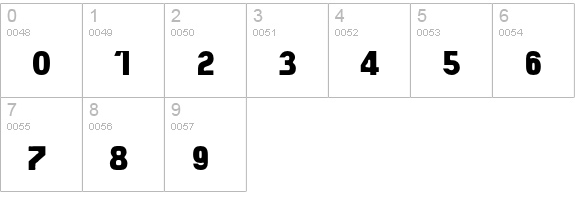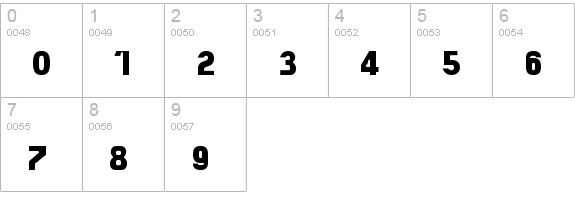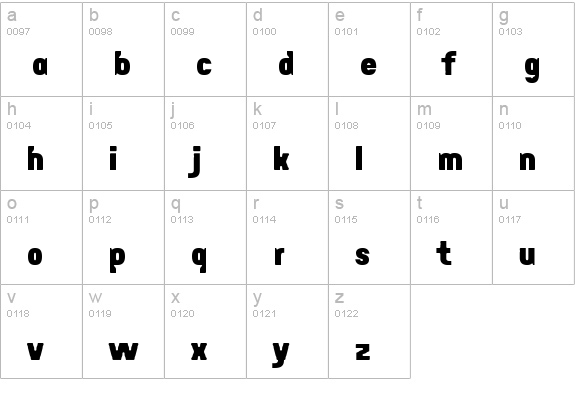
Eunuverse-ExtraBold Font Details
Eunuverse-ExtraBold is an extra-heavy, attention-grabbing variant in the Eunuverse typeface family \xE2\x80\x94 well suited to high-impact headlines, posters, and bold branding.
Eunuverse-ExtraBold is a striking and bold font that commands attention with its strong presence and modern aesthetic. With its thick and powerful letterforms, this font exudes confidence and authority, making it perfect for headlines, titles, and other display purposes. The sharp edges and clean lines of Eunuverse-ExtraBold give it a contemporary and stylish look that is sure to make your designs stand out. What's even better is that Eunuverse-ExtraBold is available for free download at FontsMarket.com. This means you can easily access and use this impressive font for your projects without any cost. Whether you're designing posters, logos, or any other creative work, Eunuverse-ExtraBold is sure to make a bold statement and leave a lasting impression. Download it now and elevate your designs with this exceptional typeface.